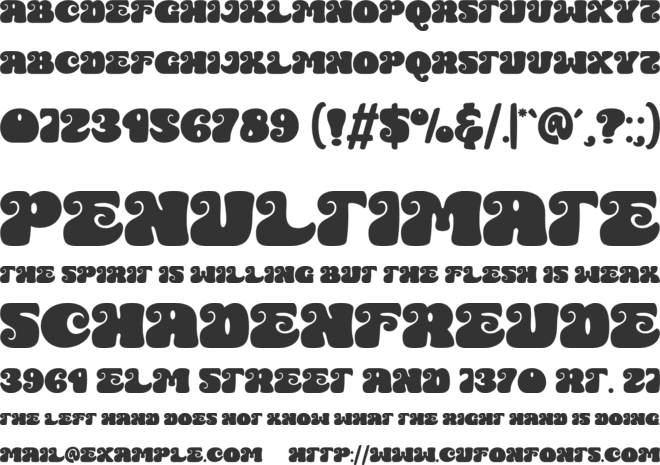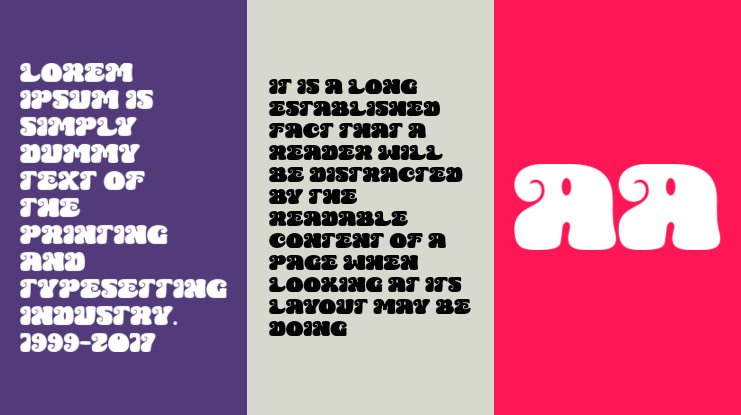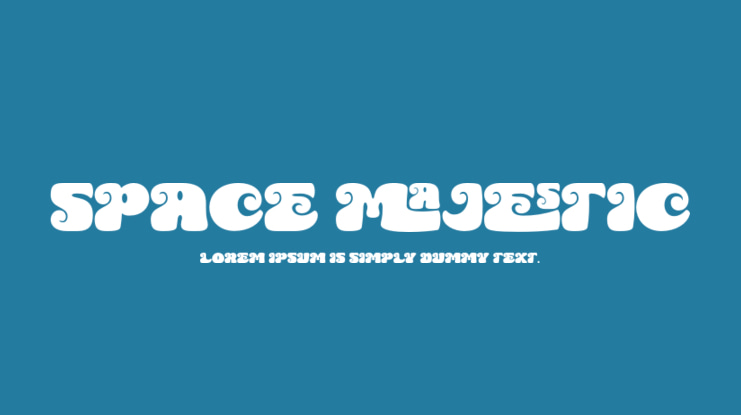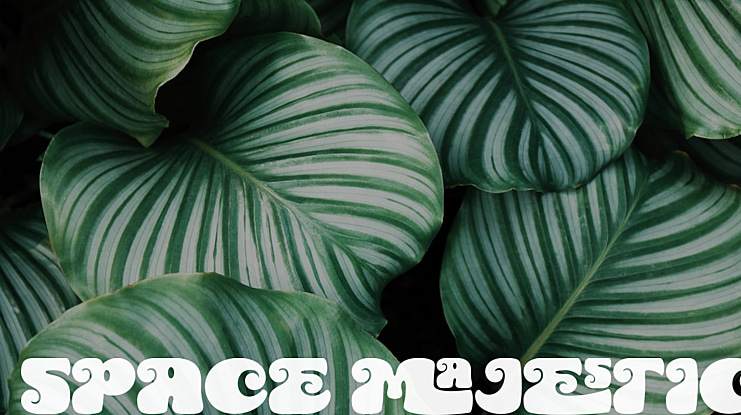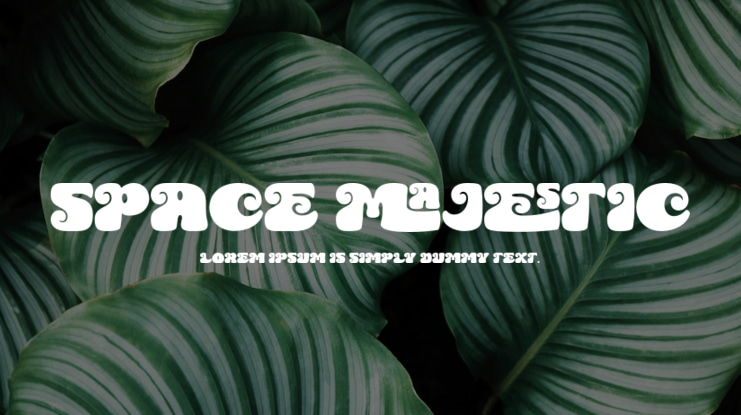
Space Majestic Font
Space Majestic is a nostalgic retro font that effortlessly combines boldness and individuality. Its robust letters possess a subtle asymmetry, imbuing them with an extra touch of allure and personality. This font is ideal for designs seeking a vintage aesthetic with a contemporary edge.
Moreover, this font is PUA encoded, granting effortless access to all its elaborate glyphs and stylish swashes!